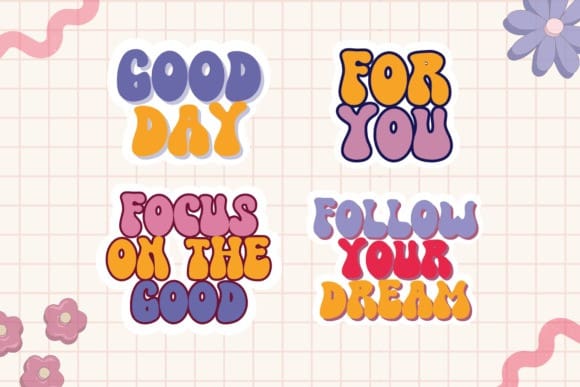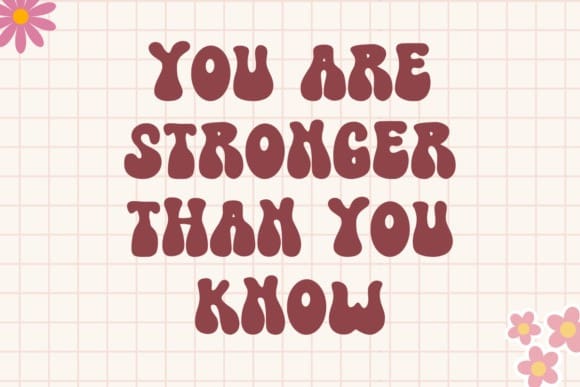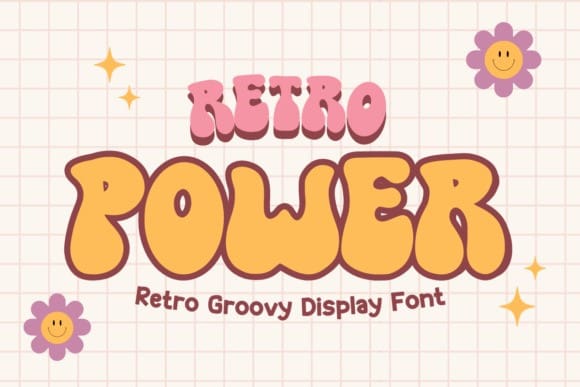
Retro Power Font
Retro Power Font is a versatile, stylish, and fun retro display font that’s perfect for a wide spectrum of applications such as greeting cards, news headlines, and more! Add it to any of your creative projects, and it will give a romantic and beautiful look. Get inspired by her unique and beautiful style and add it to your favorite designs!